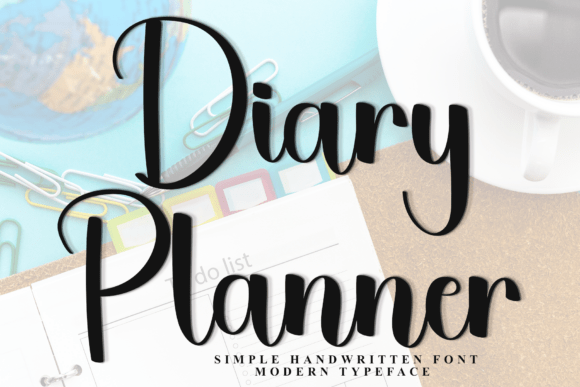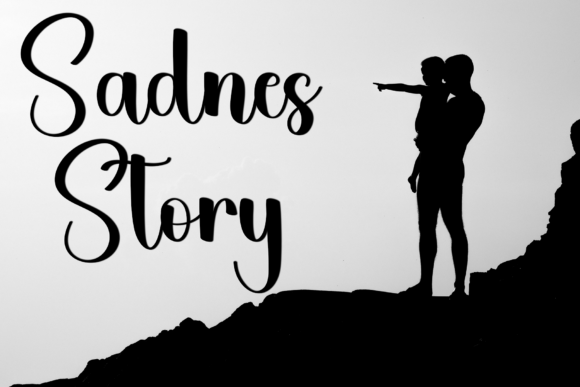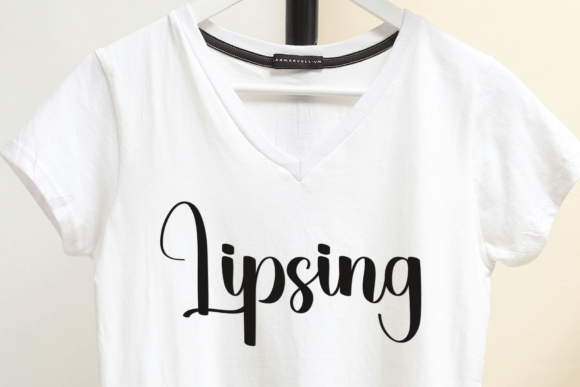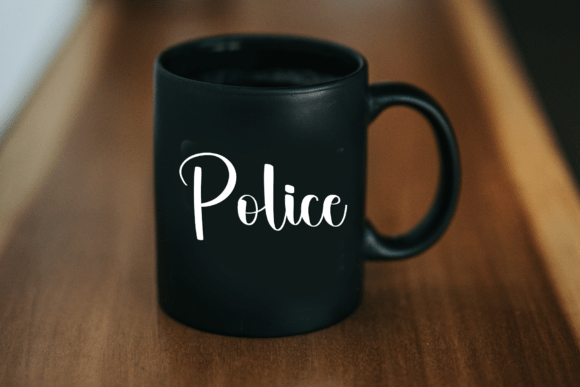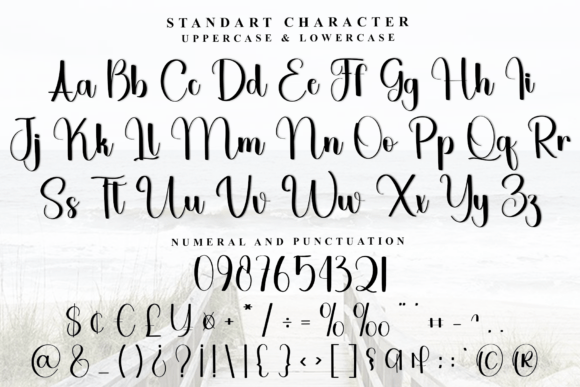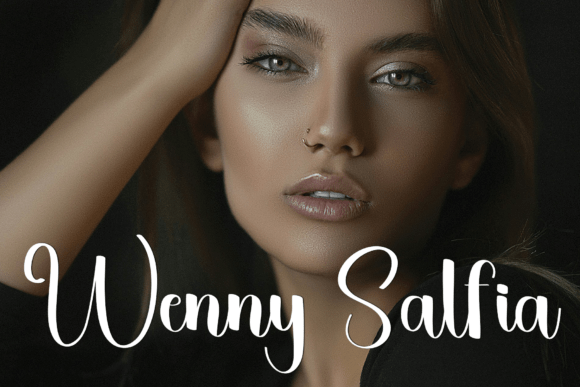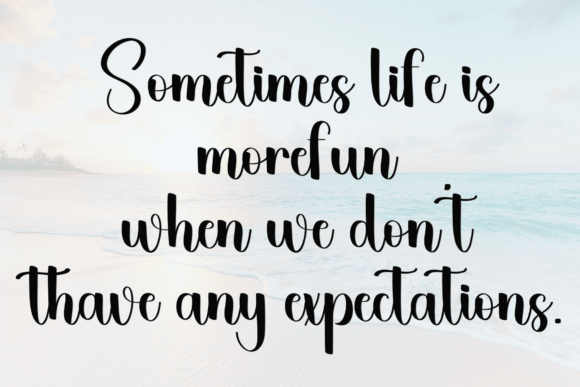
Have you ever been inspired by a beautiful font while working on a design project? Maybe it was the soft curves of a handwritten script or the bold strokes of a modern sans-serif. Whatever it was, it sparked an idea and guided your creative process. For designers like you, finding the right font can be a game-changer.
That’s where the Diary Planner Font comes in. This unique font is designed to add a touch of personality to your designs, making them stand out from the crowd. With its distinctive strokes and versatile characters, it’s perfect for a wide range of projects, from crafts to digital design. Whether you’re working on a Windows or open-source platform, the Diary Planner Font is compatible and easy to use.
Diary Planner Font Key Features
- Font Family: A unique, hand-drawn font designed specifically for diary and planner layouts.
- Unique Characteristics: Features subtle, hand-drawn flourishes and connecting strokes to create a personal and artistic feel.
Diary Planner Font Review
I recently had the chance to work with the Diary Planner Font, and I must say, it’s a lovely addition to any digital or print design project. ✨ The font’s modern and elegant aesthetic makes it perfect for planners, journals, and other organized living tools. It’s clean, easy to read, and the subtle flair of the letterforms adds a touch of sophistication.
Some of the things that stood out to me include:
- ✨ The font’s legibility is excellent, making it perfect for body text.
- ✨ The font’s versatility allows it to work well in both digital and print applications.
- ✨ The font’s modern aesthetic makes it perfect for trendy designs.
- ⚠️ The font’s range is somewhat limited, and it may not be suitable for more formal or traditional designs.
- ⚠️ The font’s weight options are somewhat limited, which may make it difficult to achieve certain visual effects.
Overall, I think the Diary Planner Font is a solid addition to any designer’s toolkit. While it may not be perfect for every project, it’s a great choice for modern and organized living designs.
The Diary Planner Font is commonly used for:
- Digital planners and journals.
- Organizational tools and to-do lists.
- Wedding and event planning templates.
- Personal development and goal setting templates.
Pacifico is a beautiful, elegant script font perfect for designers who want a more refined and sophisticated look. It’s ideal for use in branding, invitations, and other creative projects where a touch of elegance is needed. Pacifico is more refined and elegant compared to Diary Planner Font, which has a more playful and casual feel.
Great Vibes is a modern, cursive font that exudes a sense of relaxation and calmness. It’s perfect for designers who want to create a soothing and peaceful atmosphere in their designs. Great Vibes is more relaxed and laid-back compared to Diary Planner Font, which has a more energetic and playful vibe.
Alex Brush is a handwritten font that has a personal and intimate feel to it. It’s ideal for designers who want to create a sense of connection and warmth in their designs. Alex Brush is more personal and emotional compared to Diary Planner Font, which has a more neutral and functional feel.
Dancing Script is a playful, cursive font that’s perfect for designers who want to add a touch of whimsy and fun to their designs. It’s ideal for use in creative projects such as advertising, social media, and entertainment. Dancing Script is more playful and energetic compared to Diary Planner Font, which has a more straightforward and functional feel.
The Diary Planner Font has a font size range of 8pt to 72pt, making it suitable for a variety of applications, from small print to large headlines. The font also includes a range of line heights and leading options to ensure optimal readability.